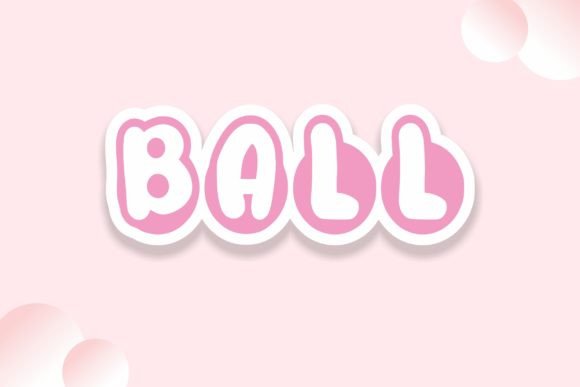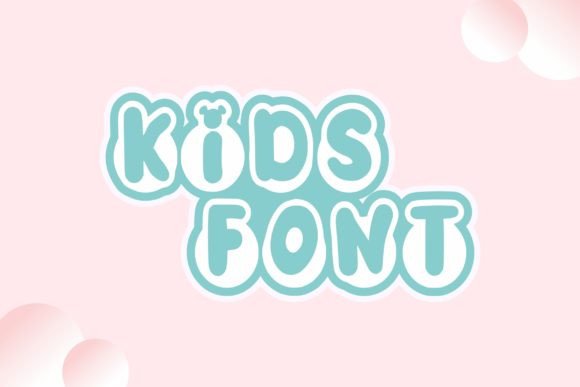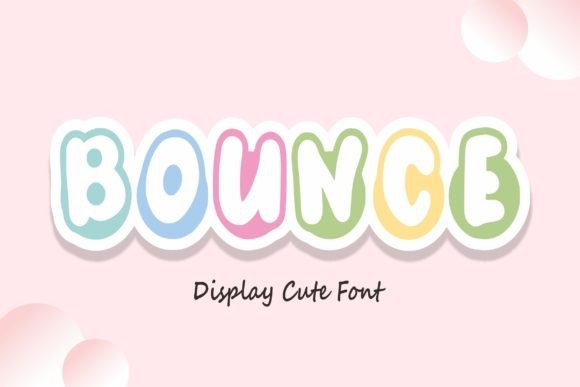
The Perfect Bounce: Adding Playfulness to Your Designs
Remember that moment when you’re brainstorming ideas for a new project, and suddenly, a spark of creativity hits you? The colors, the shapes, the fonts – everything falls into place, and you can’t wait to bring your vision to life. For designers, this feeling is a constant pursuit, and the right tools can make all the difference. That’s where the Bounce Font comes in – a fun and quirky display font designed to add a touch of whimsy to your creative projects.
With its unique blend of curves and lines, the Bounce Font is perfect for adding a playful twist to your designs. Whether you’re creating a logo, a social media graphic, or a poster, this font is sure to bring a smile to your face and your audience’s faces. As a designer, you know how valuable it is to have a versatile font that can elevate your work and make it stand out from the crowd. The Bounce Font is a valuable addition to any designer’s toolkit, and we’re excited to dive deeper into its features and benefits.
Bounce Font Key Features
- Unique Characteristics: Bounce Font is a playful, handwritten font with a unique, bouncy feel that adds a touch of whimsy and personality to any design.
- Script and Regular Variants: Bounce Font comes in both script and regular variants, allowing designers to choose the perfect style to suit their needs.
- Font Weight and Style: Bounce Font offers a range of font weights and styles, from light to bold, allowing designers to customize the look and feel of their designs.
Bounce Font Review
Overall, I think the Bounce Font has some great qualities, but also some limitations. Let’s dive in and see what I mean!
- Playful and fun vibe: The Bounce Font is perfect for creating a lighthearted and approachable atmosphere in your design.
- Customizable: You can adjust the font size, color, and even add effects like shadows and glow to give it a unique look.
- Clean lines: The font’s clean lines and simple shape make it easy to read, even at smaller sizes.
- Limited legibility at small sizes: While the font is clean and simple, it can become difficult to read at very small sizes.
- Lacks versatility: The Bounce Font is best suited for casual, creative projects, and may not be the best choice for formal or professional designs.
- Not suitable for large blocks of text: Due to its playful nature, the font can become overwhelming when used for large blocks of text.
Overall, I think the Bounce Font is a great choice for designers looking to add a touch of whimsy to their projects. However, it’s essential to keep its limitations in mind and use it judiciously to avoid overwhelming the design.
Bounce Font is perfect for creating fun and playful designs, such as social media graphics, party invitations, and children’s educational materials. You can also use it to add a touch of whimsy to your branding and marketing materials.